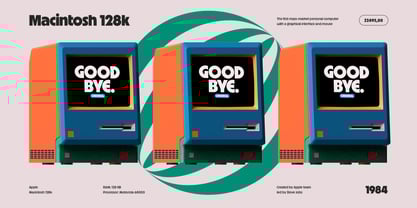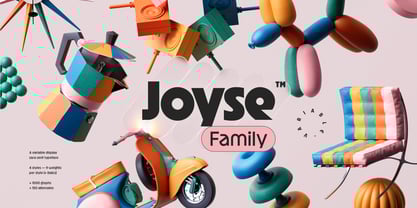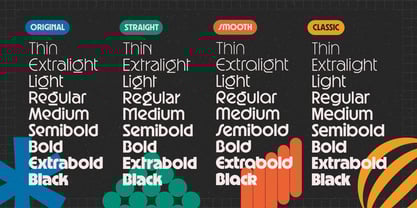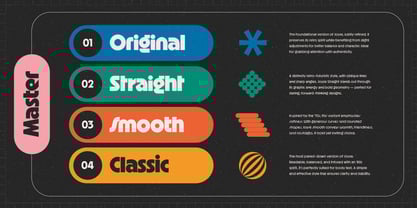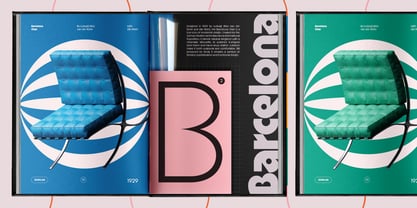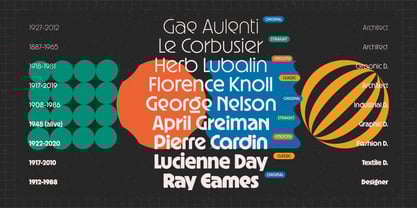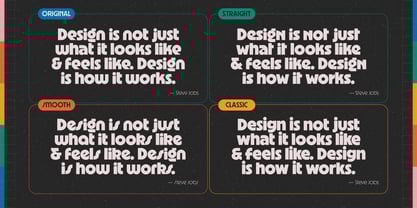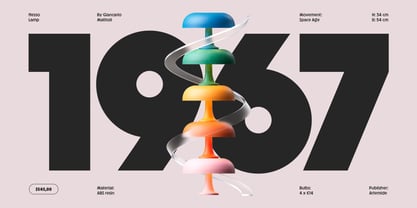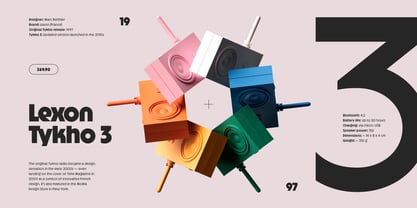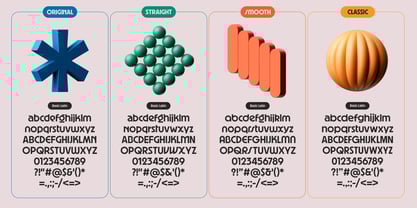
Joyse
by Almarena
The Joyse Font Family was designed by Jérémie Gauthier and published by Almarena. Joyse contains 95 styles and family package options.
Introducing Joyse™, a sans-serif display font that blends retro style with a distinctly modern touch. Perfect for bold logos, eye-catching posters, magazine covers, and any visual identity that aims to be unique and impactful. It features over 540 glyphs, including more than 30 alternatives, and supports 90 languages.